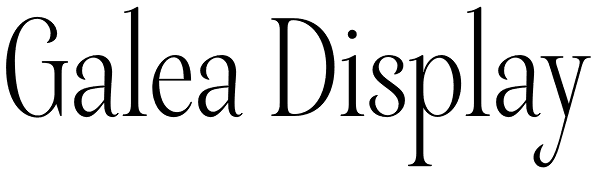
Galea Display
Galea is a slightly condensed serif typeface with long extenders. Its elongated proportions and graceful terminals seek to bring femininity and elegance to any layout. It is a display face that works well at large sizes in editorial contexts as a...